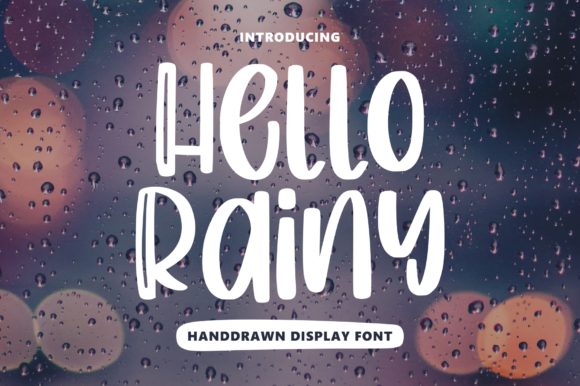
Introducing Hello Rainy Font: The Whimsical Display Font That Will Transform Your Designs!
In a world of ordinary fonts, Hello Rainy stands out as a breath of fresh air, captivating hearts with its playful charm and enchanting appeal. This remarkable display font, crafted by the talented goodjavastudio, is a delightful dance of strokes that will elevate your designs to new heights.
Hello Rainy's playful spirit is like a gentle rain shower, refreshing your designs with a sense of joy and lightheartedness. Its unique curves and cheerful strokes create a visual harmony that will draw the eyes of your audience, inviting them to engage with your content.
Picture this: Your social media posts adorned with Hello Rainy's whimsical characters, capturing attention and spreading smiles. Your invitations and wedding designs transformed into enchanting works of art, leaving a lasting impression on your guests. Your logos and branding infused with a touch of playfulness, making your business stand out from the crowd.
Hello Rainy is not just another font; it's a creative companion that will ignite your imagination and add a sprinkle of magic to your designs. Its versatility knows no bounds, adapting seamlessly to a variety of projects, from personal to professional.
With Hello Rainy by your side, you'll discover a world of creative possibilities, where every design tells a story and every project becomes a masterpiece. Embrace the charm of Hello Rainy and let your creativity blossom!